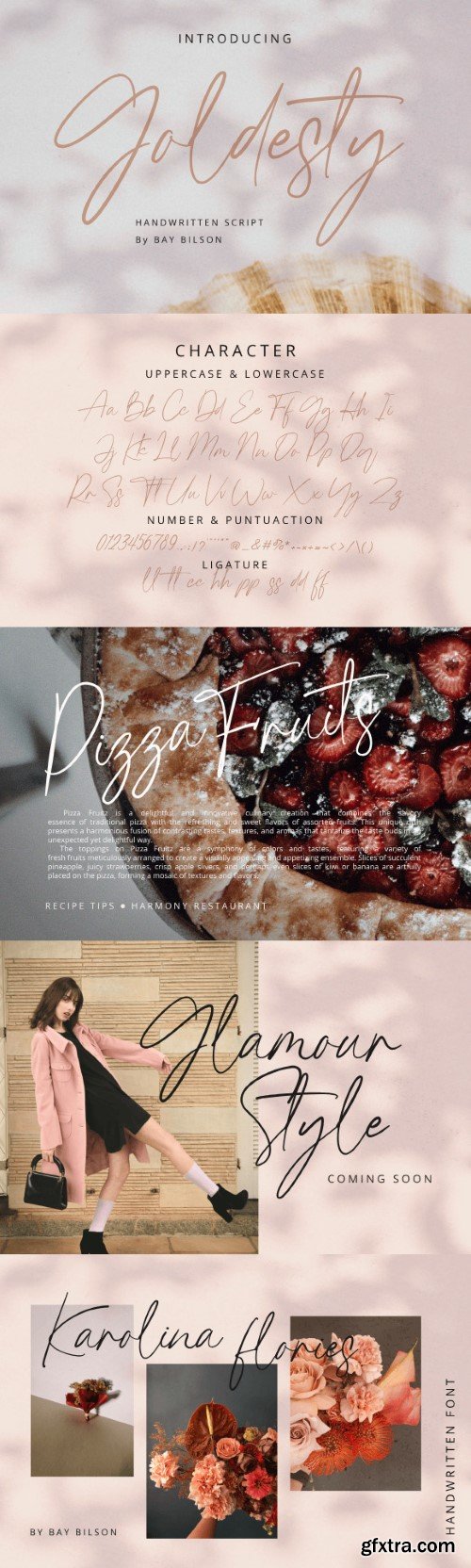
高尔思帝字体
Goldetsy is a captivating script font that exudes a perfect blend of elegance and whimsy. Its graceful, flowing strokes evoke a sense of handcrafted artistry, reminiscent of traditional calligraphy. The letters are intricately designed, showcasing a delicate balance between sophistication and playfulness.